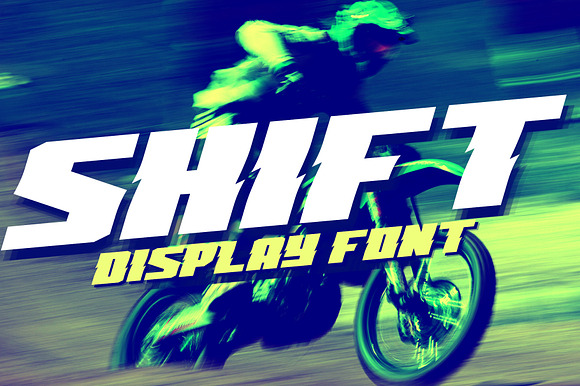
SHIFT FONT
Shift is a bold italic font inspired by extreme, action, power and motor sports.
SHIFT FONT by Alphabet Agency fits naturally into Branding, posters, packaging, typography.